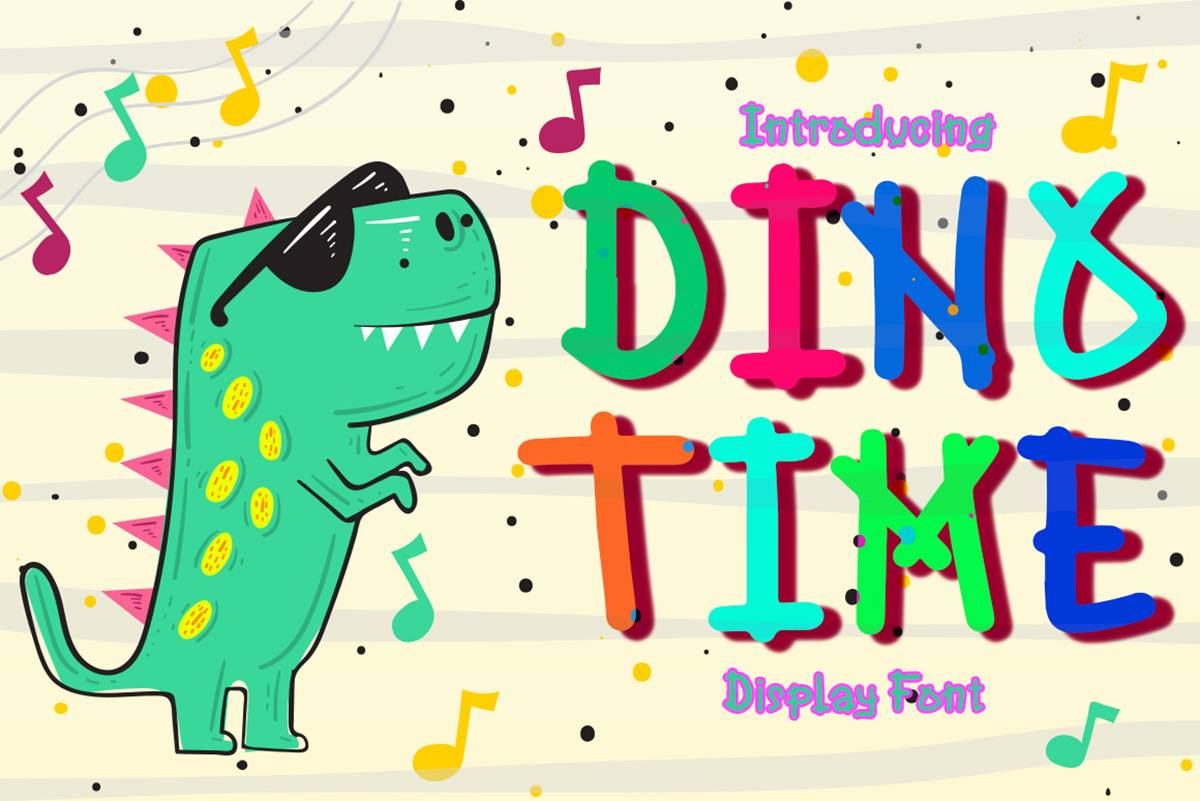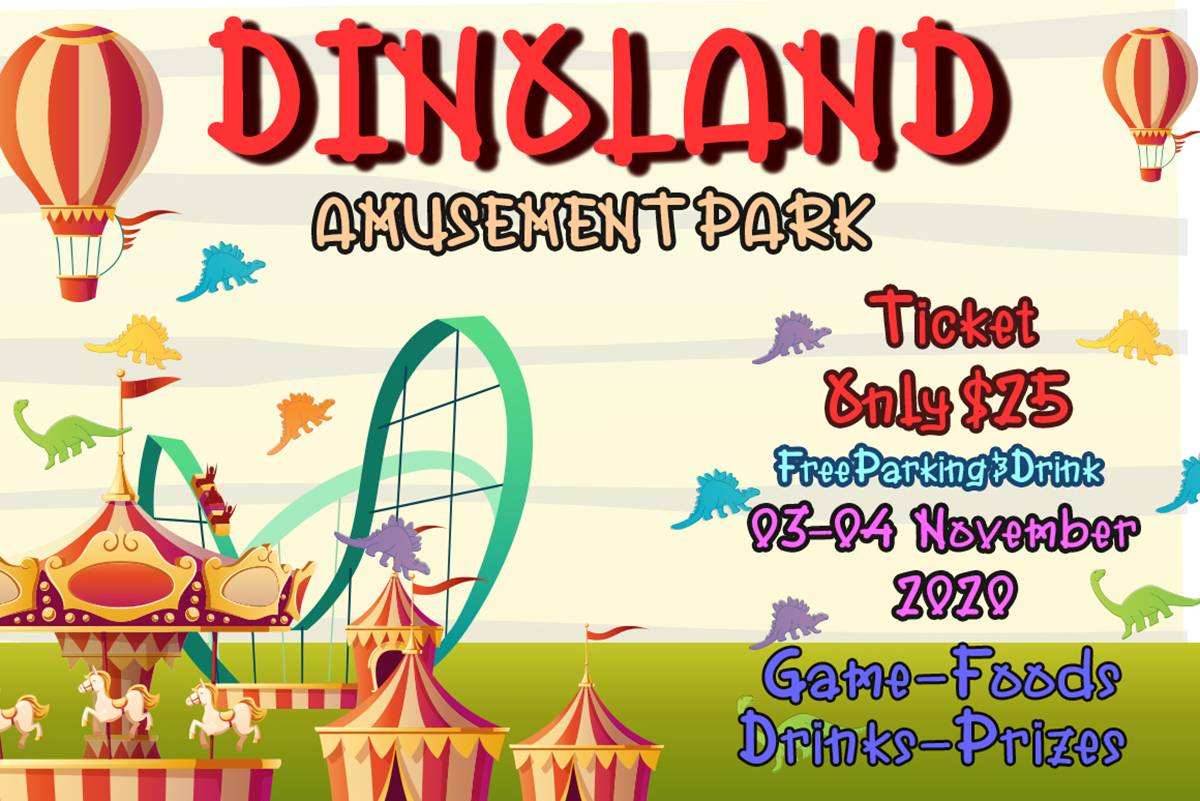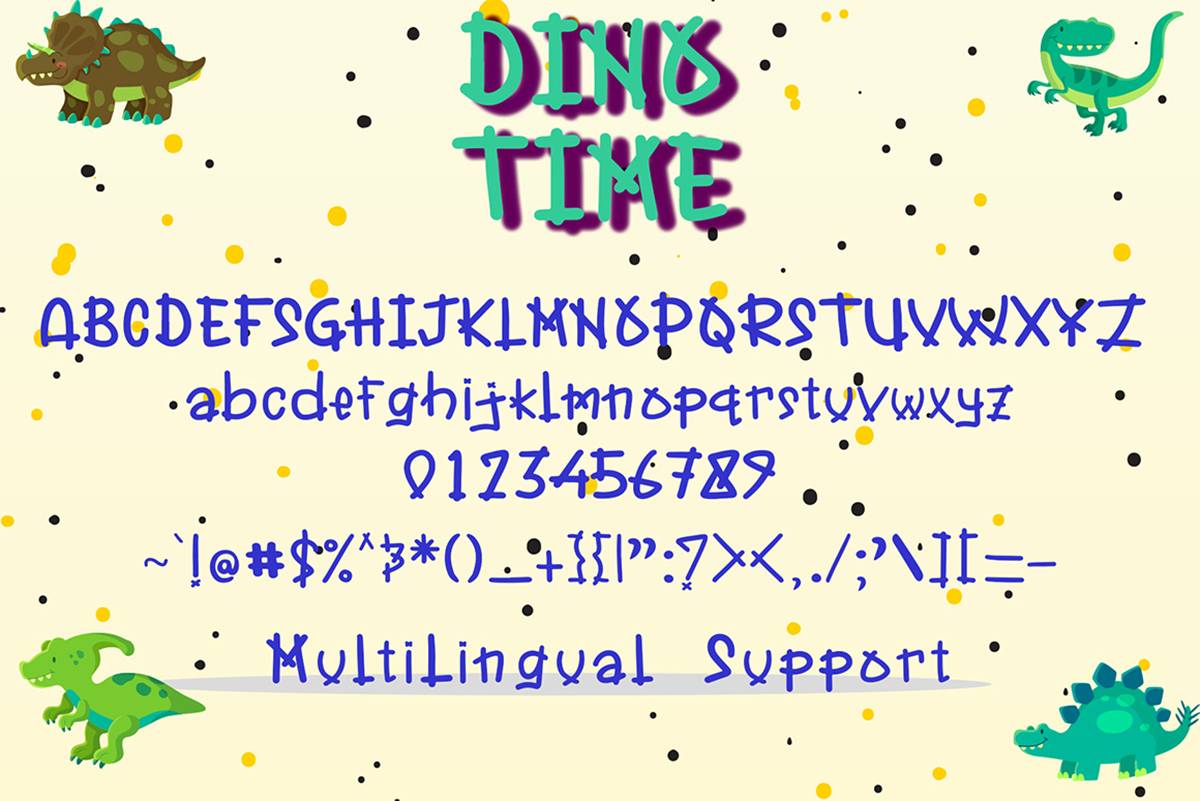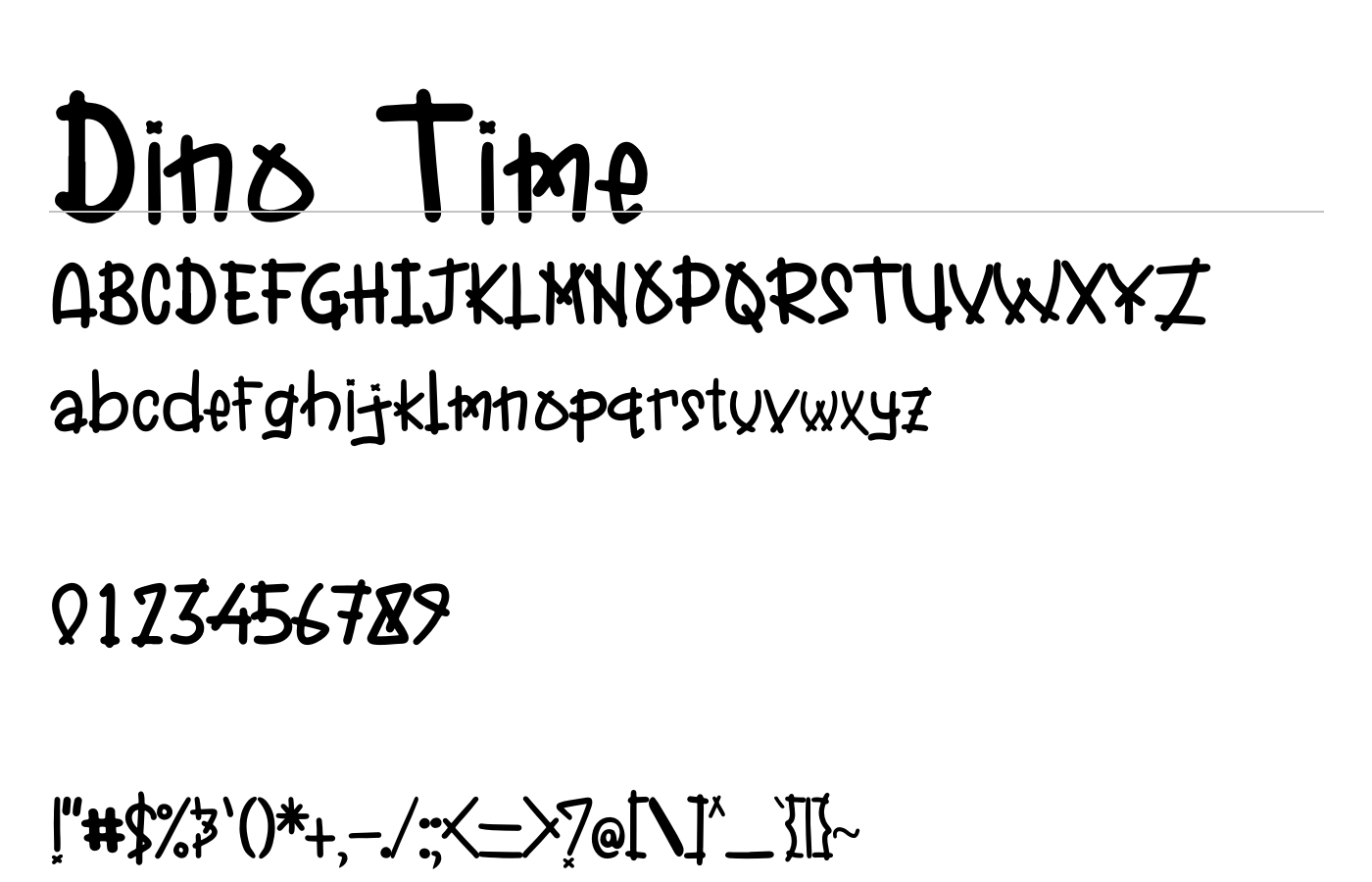
Dino Time is a playful, hand-drawn sans serif font that captures a fun and casual vibe with its irregular, rounded letterforms and quirky details. Its lively, uneven strokes and whimsical shapes make it ideal for children’s content, informal designs, and creative projects that want to convey friendliness and energy. This font works best in headlines, logos, and packaging where a youthful, engaging mood is desired.
Dino Time Font
About Dino Time Font